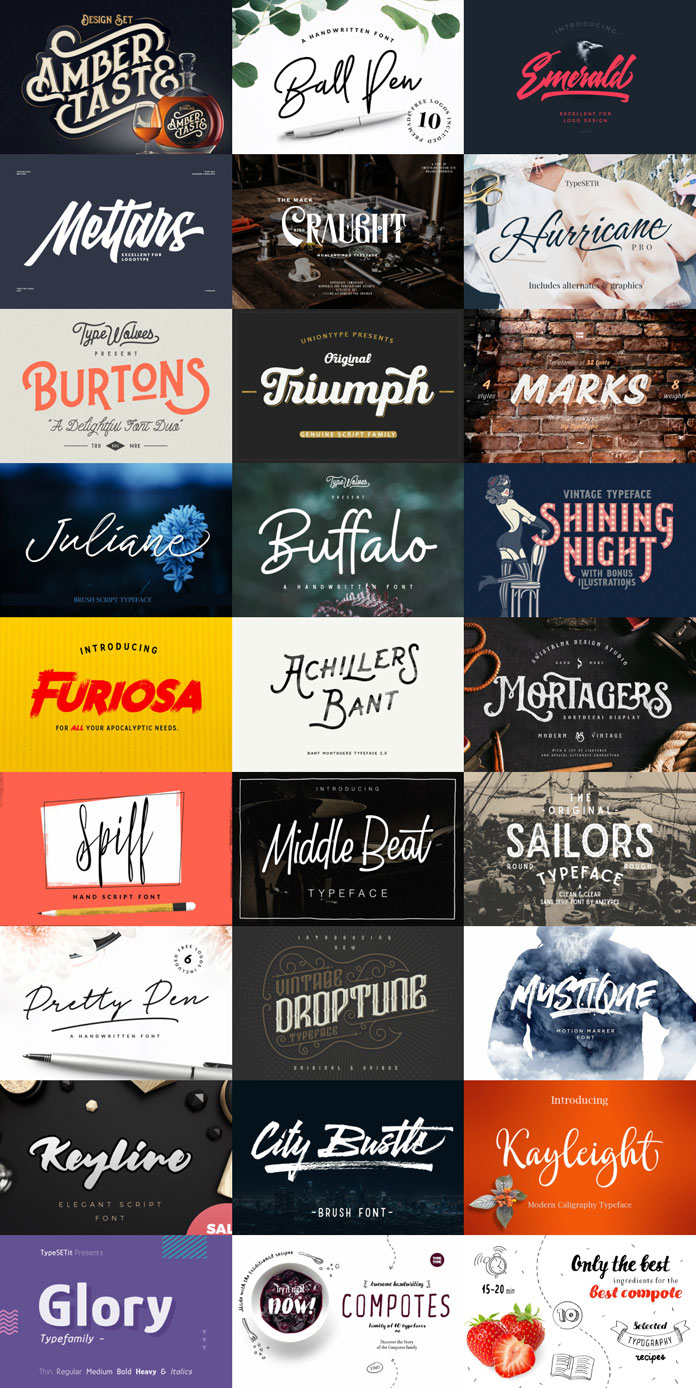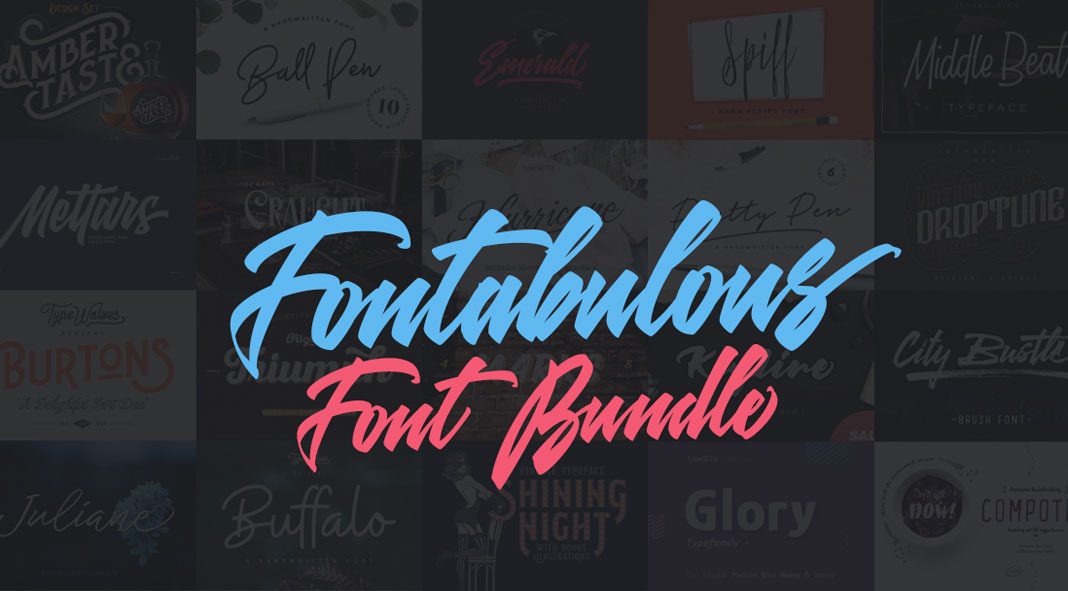
This extensive collection includes a handpicked selection of 26 high quality fonts well suited for a wide range of different projects. Only for a very limited time, you can get the full set 99 % off! The Fontabulous font bundle includes a fine mix of hand drawn, display, and script typefaces. Whether branding, posters, advertisement, greeting cards, invitations or whatever you want to design, this collection covers a broad range of typographic use. These fonts will help you to make your work more visually appealing. Some of the typefaces are equipped with an extensive set of alternate letters, while others come as a comprehensive font family in different weights and styles. When buying individually you would have to pay $2760 at the regular price to get all these typefaces, but only for a limited time and only in this bundle, you can get them all for just $29 – that’s 99% off! To know more about all included fonts, just follow the link below.